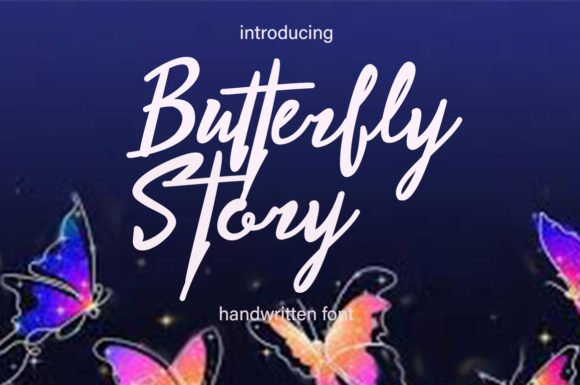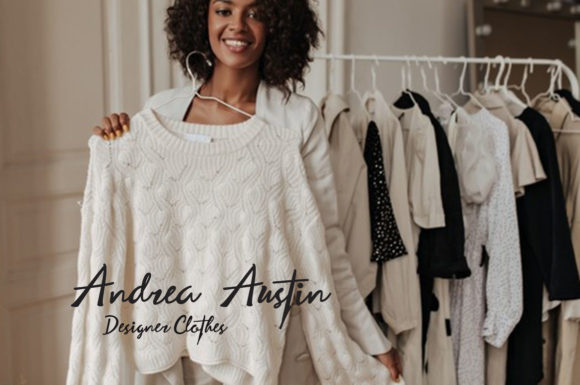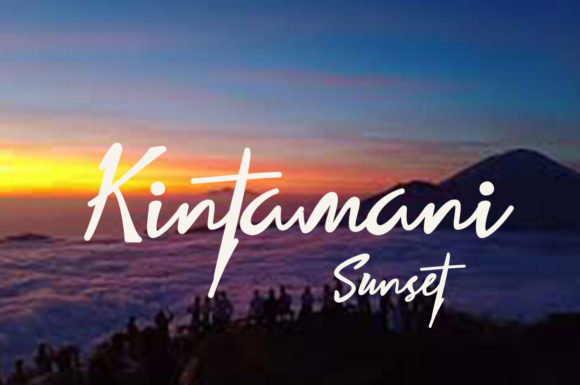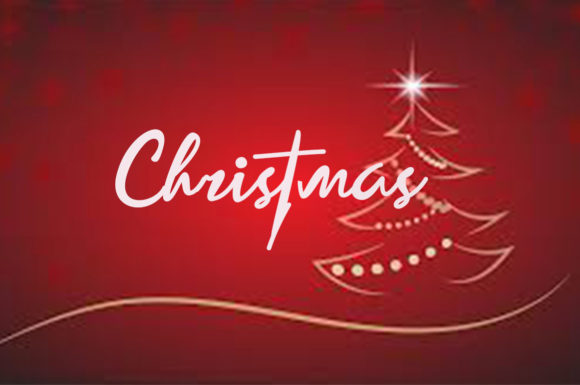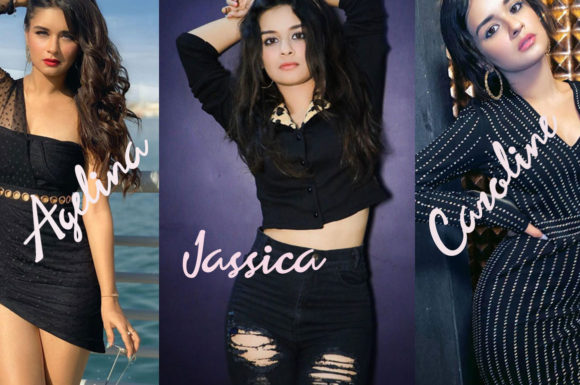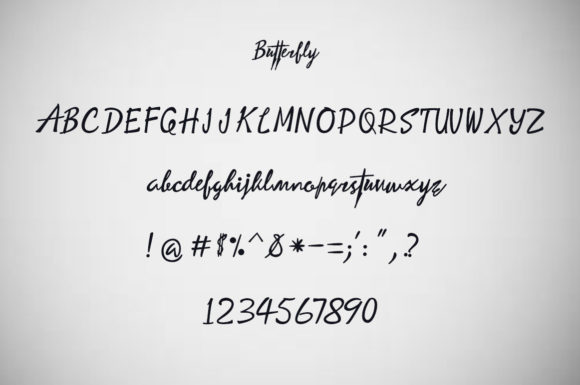
When Words Take Flight: Unveiling the Magic of Butterfly Story Font
As I sat at my desk, surrounded by scribbled notes and scattered sketches, I knew I was on the verge of something special. The words were flowing, and the ideas were pouring in – it was one of those rare moments when creativity knows no bounds. And then, it hit me – the perfect font to bring my vision to life. That’s when I stumbled upon the enchanting Butterfly Story Font, a typographic treasure that adds a touch of whimsy and elegance to any design.
This charming font is more than just a pretty face; it’s a versatile tool that can elevate your designs from ordinary to extraordinary. Whether you’re crafting wedding invitations, thank-you cards, or logos, Butterfly Story Font is the perfect companion to help you convey your message with style and sophistication.
Key Features of Butterfly Story Font
- Unique Characteristics: The Butterfly Story Font features a unique blend of elegant and whimsical elements, with intricate details and subtle flourishes that add a touch of sophistication and playfulness to any design.
Butterfly Story Font Review
Overall, I think the Butterfly Story Font has some beautiful qualities that make it perfect for certain projects. ✨ Here are a few things that stand out:
- Unique Whimsy: The font has a lovely, dreamy quality to it that’s perfect for children’s books, invitations, or any project that needs a touch of magic.
- High-Quality Rendering: The font is well-designed and renders beautifully in various sizes and contexts.
- Cultural Significance: The font incorporates traditional cultural elements, making it a great choice for projects that require sensitivity and understanding of cultural heritage.
- Limited Character Set: The font’s character set is limited, which can make it difficult to use for longer texts or those that require a wide range of characters.
- Not Ideal for Body Text: The font’s unique style can be overwhelming for large blocks of text, making it better suited for headings and titles.
Overall, I think the Butterfly Story Font is a beautiful addition to any designer’s toolkit. While it may not be suitable for every project, it’s perfect for those that require a touch of whimsy and cultural sensitivity.
Use the Butterfly Story Font to create whimsical and playful designs that evoke a sense of wonder and curiosity.
Pair the font with colorful illustrations and graphics to create a visually appealing design.
Use the font in headings and titles to add a touch of elegance and sophistication to your design.
The Butterfly Story Font is perfect for:
Children’s book covers and illustrations
Brand logos and identity designs
Marketing materials and social media graphics
Alternatives to Butterfly Story Font
Great Vibes Font is a beautiful, cursive script font ideal for adding a touch of elegance to your designs. It’s perfect for creating invitations, quotes, and other creative projects where a romantic feel is desired. Great Vibes Font has a similar flowing feel to Butterfly Story Font, but with a more modern and sophisticated look.